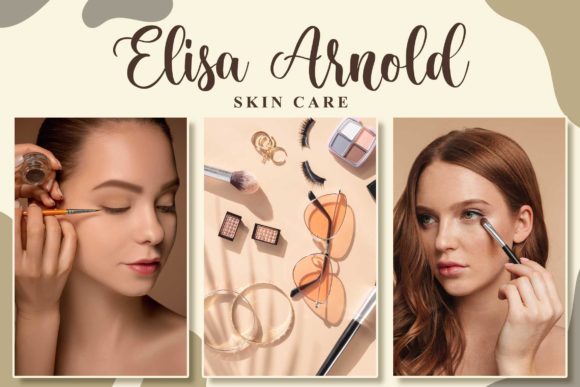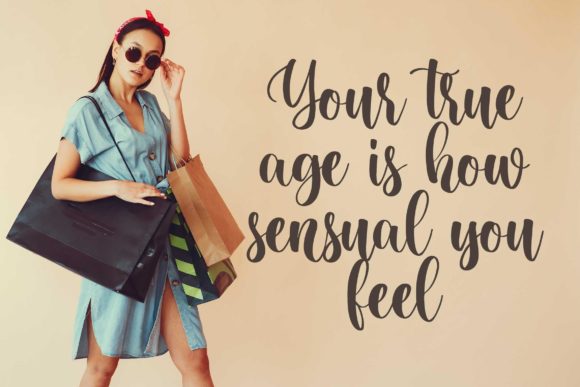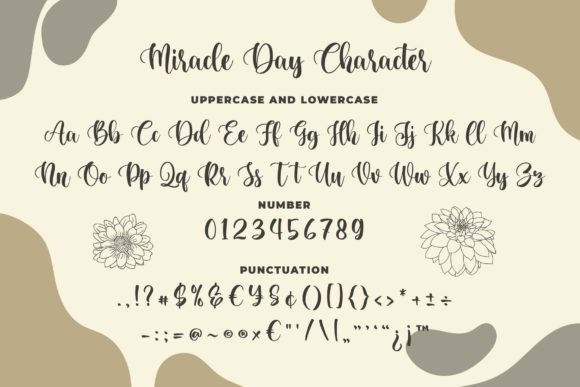
Introduction to Miracle Day Font
Have you ever been scrolling through Instagram and stumbled upon a beautifully designed post that catches your eye? Maybe it was a vibrant quote, a whimsical illustration, or a stunning photo with a custom caption. Whatever it was, you couldn’t help but feel inspired and wonder how it was created. For designers, moments like these are a constant reminder of the importance of having the right tools and resources to bring their creative ideas to life.
That’s where the Miracle Day Font comes in – a high-quality, free download that’s perfect for designers looking to add a personal touch to their projects. With its gorgeous swashes and ligatures, this script font is incredibly versatile and can be used for a wide range of creative projects, from social media graphics to DIY calligraphy.
Whether you’re working on a design project or just looking for a new font to add to your collection, the Miracle Day Font is a valuable resource that’s sure to bring a smile to your face and a touch of elegance to your work.
Key Features of Miracle Day Font
- High-quality design: Miracle Day Font is a premium, high-quality font designed for creative projects, offering a unique and sophisticated look.
- Transparent background: This font features a transparent background, making it perfect for use on any background or design element.
- Large character set: Miracle Day Font includes a large character set, covering a wide range of languages and characters, making it suitable for global design projects.
- High-resolution design: The font is designed at a high resolution, ensuring crisp and clear typography, even at large sizes.
- Perfect for creative projects: Miracle Day Font is ideal for use in creative projects, such as logos, branding, and advertising, where a unique and sophisticated look is required.
Honest Review: Miracle Day Font
I recently came across the Miracle Day Font, and I must say, it’s a fantastic addition to any design project. With its high quality and unique style, this font is perfect for creative projects that need a little extra flair.
- ✨ What works well: The transparent background of this font makes it incredibly versatile and easy to use in various design scenarios. Its modern and sleek design also makes it a great fit for a wide range of creative projects.
However, there are a few limitations to consider. ⚠️ One of the main issues I had with this font is that it may not be suitable for projects that require a lot of text, as the design can start to feel a bit repetitive.
Overall, I’m really impressed with the Miracle Day Font, and I think it’s a great addition to any design resource library. Its unique style and high quality make it a great choice for creative projects, and the free download option is a definite bonus.
For optimal results, use the Miracle Day Font on a high-quality design with a transparent background. This will allow the font to shine and add a touch of elegance to your creative project.
The Miracle Day Font is ideal for designing wedding invitations, social media graphics, and promotional materials. Its unique and elegant design makes it a great choice for any creative project that requires a touch of sophistication.